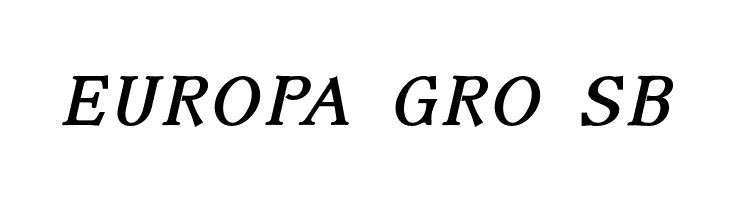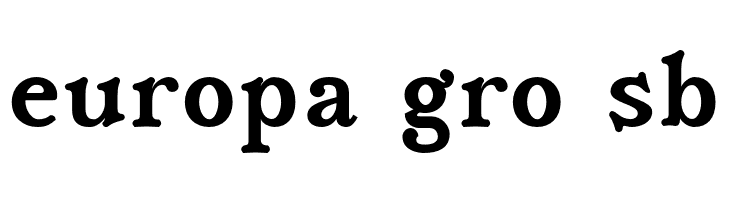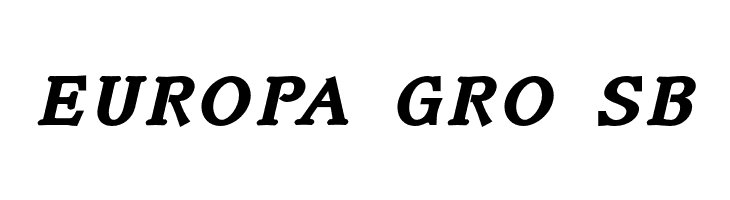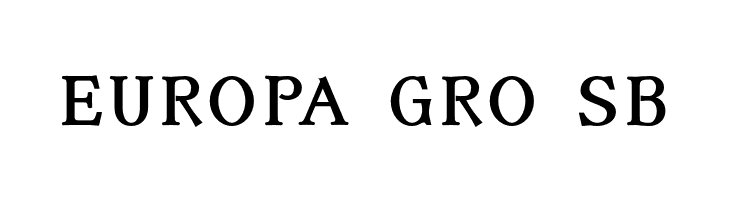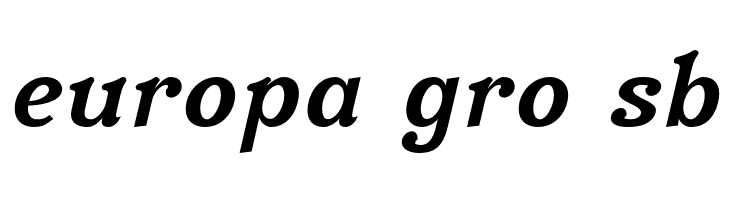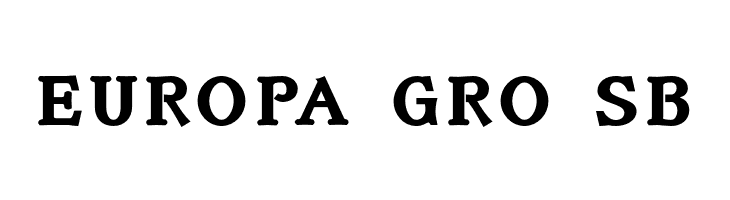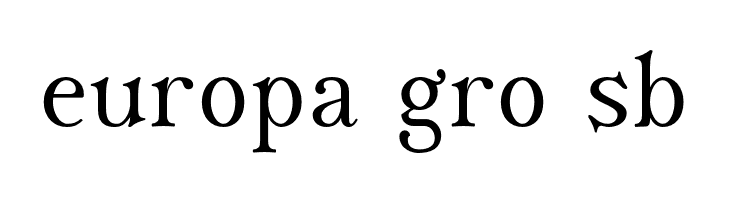
An elegant italic serif font with flowing lines and traditional charm.
A classic serif font with elegant strokes and refined details.
A bold serif font with strong serifs and high contrast, ideal for impactful designs.
A bold, italic serif font with a classic and elegant style.
A classic serif font with a modern, elegant style.
A bold, italic serif font with a modern and elegant style.
A bold serif font with strong strokes and elegant serifs.
A classic serif font with elegant strokes and a refined appearance.